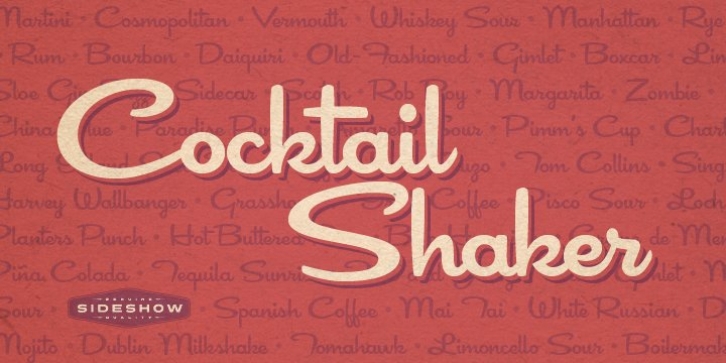
Cocktail Shaker downloadDesigner: Stuart Sandler
Publisher: Sideshow
Wrap your chilly fingers around this ultra cool swingin' typeface! Cocktail Shaker is a swanky retro connecting script born out of 1950s lounge culture. Often referred to as the ‘googie’ look, Cocktail Shaker blends a casual loungy script with clean readability and a twist of modern Atomic Age charm.
Several alternate characters are included in this typeface.